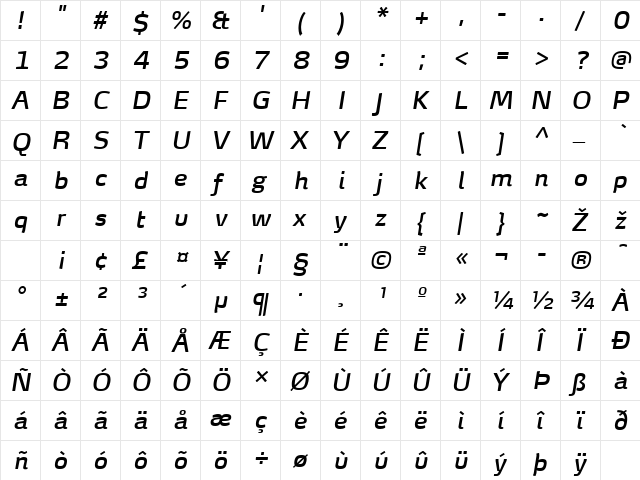
MaxDemiSerifTF-BookItalic Regular
| Foundry | FontShop International |
| Designer | Morten Rostgaard Olsen |
Design Context for MaxDemiSerifTF-BookItalic Typeface
MaxDemiSerifTF-BookItalic brings classic typographic sensibility to the table — its serifs and measured letterforms reflect centuries of print heritage. Its italic angle brings a sense of urgency and motion to the letterforms.